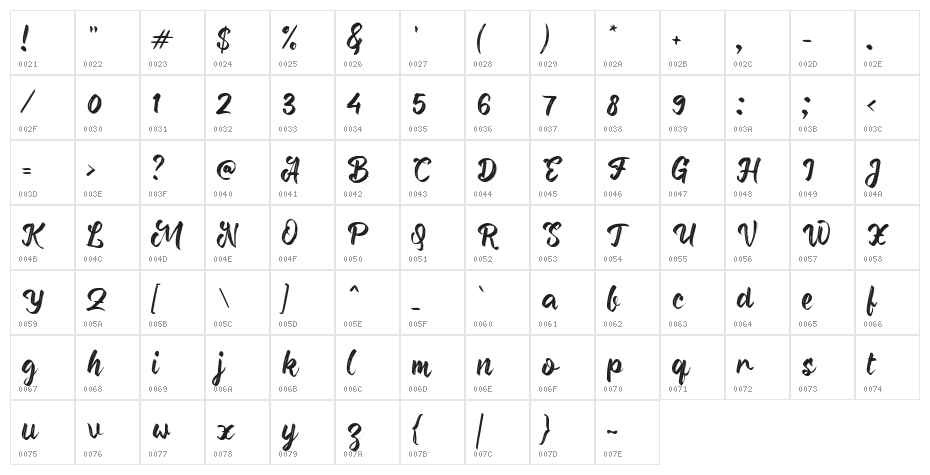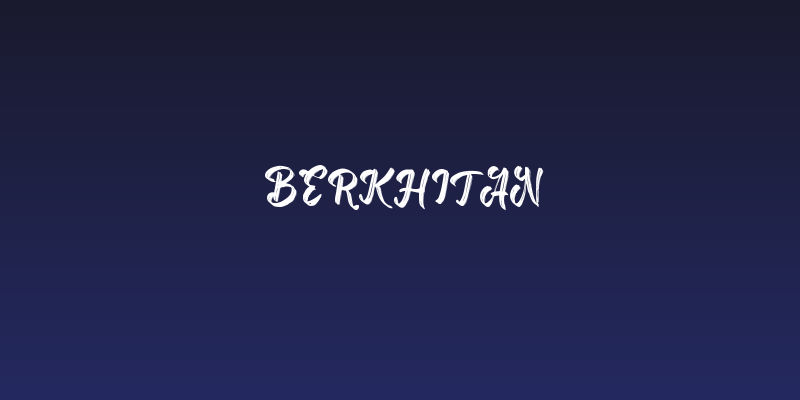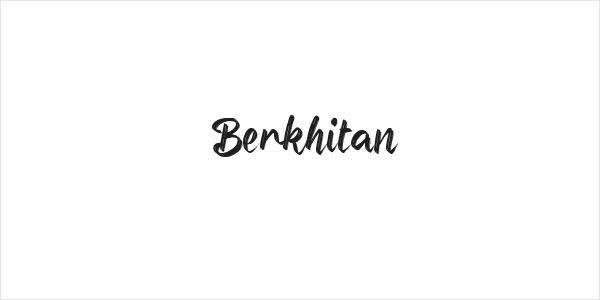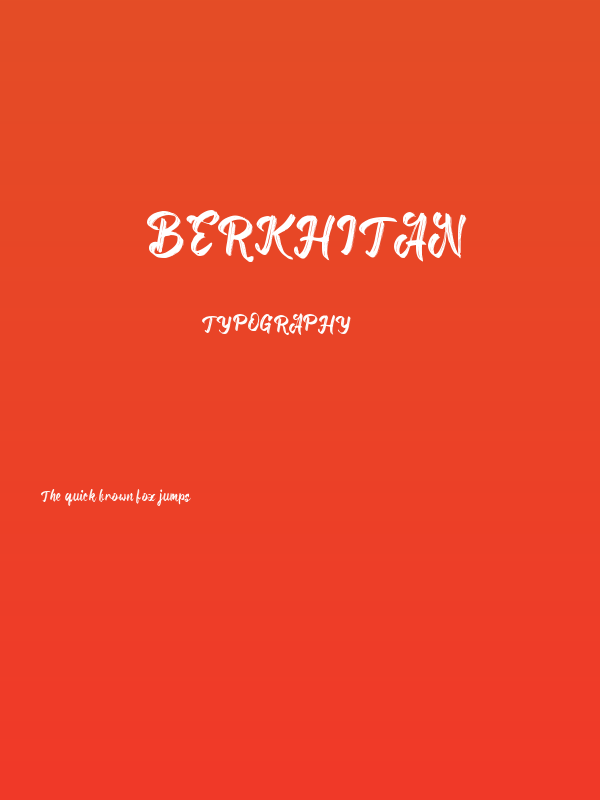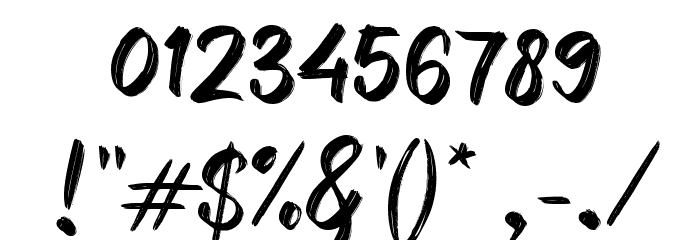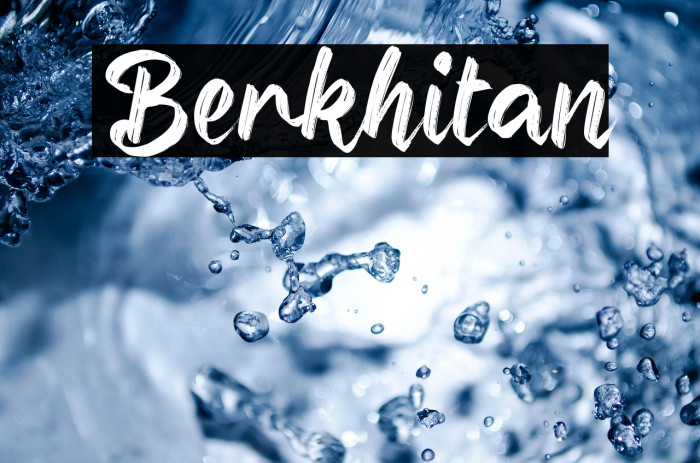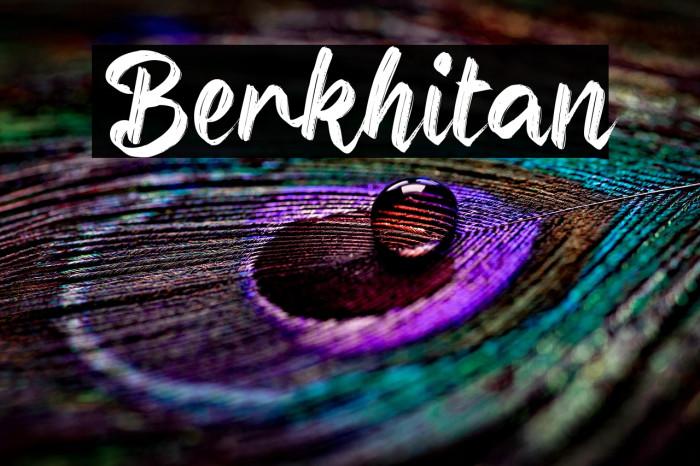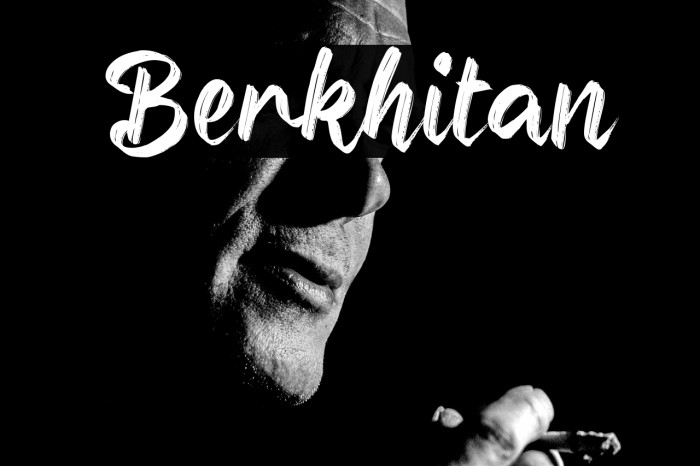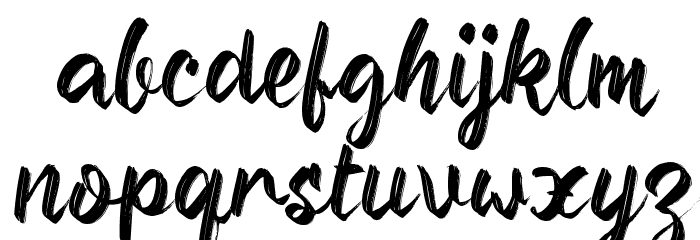
Berkhitan Font
Berkhitan Description
This font features a bold and expressive script style, characterized by its dynamic and flowing letterforms. The strokes are thick and brush-like, giving it a hand-painted appearance. The uppercase letters are particularly ornate, with sweeping curves and flourishes that add a sense of movement and elegance. The lowercase letters maintain a consistent style, with a slightly more restrained design that complements the uppercase. Numbers and special characters are crafted with the same attention to detail, ensuring a cohesive look across all elements. This font is ideal for projects that require a touch of artistic flair and sophistication.
| Proposed Projects | Ideal for wedding invitations, branding, logo design, and artistic posters. |